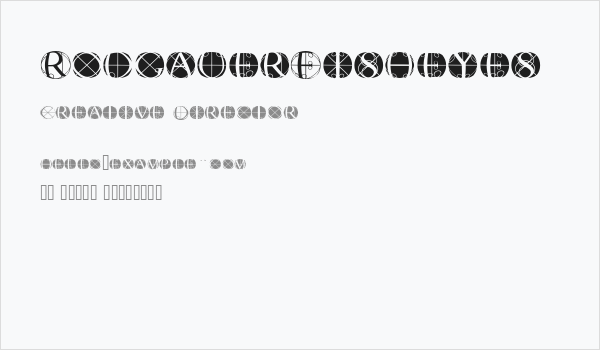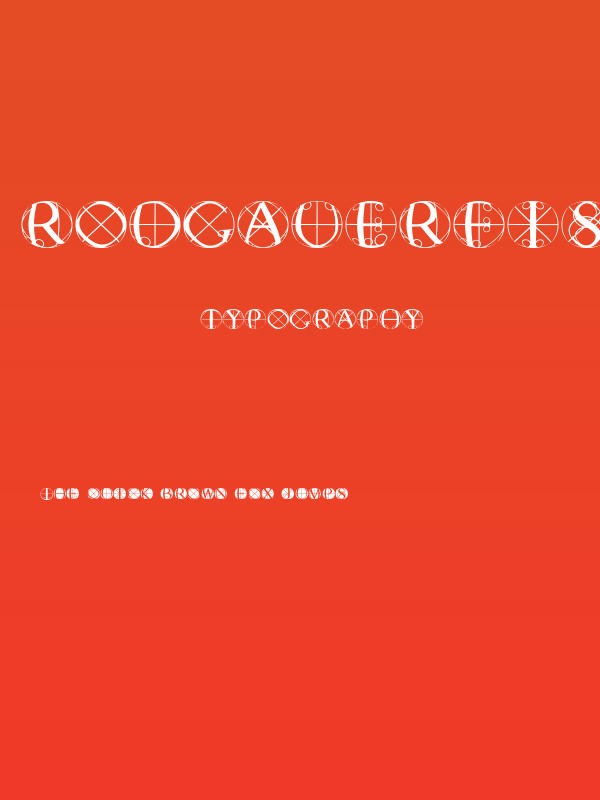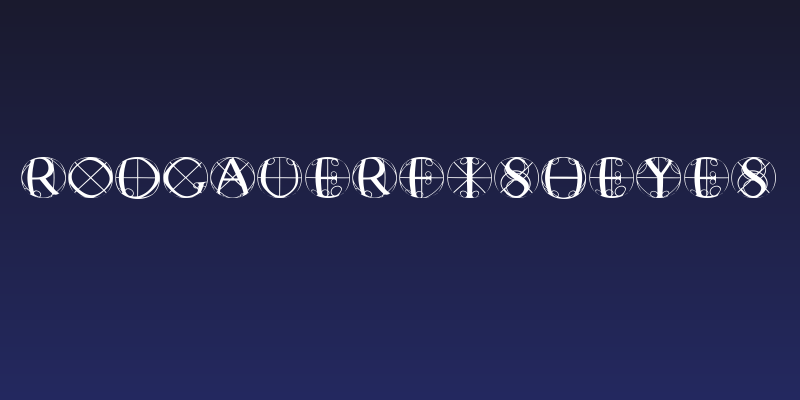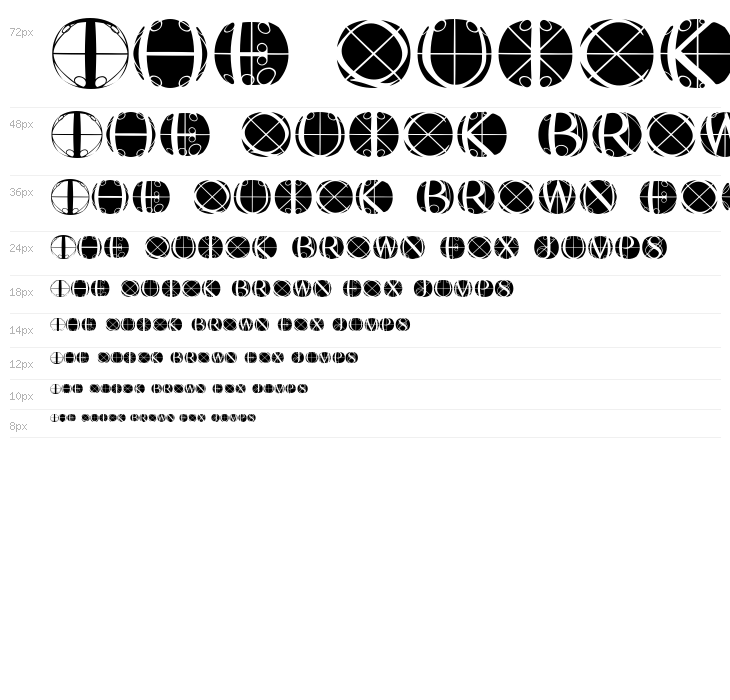
RodgauerFisheyes Font
RodgauerFisheyes Description
This font features a highly decorative and artistic style, with each character enclosed in a circular frame. The letters are intricately designed with geometric patterns and flourishes, creating a unique and eye-catching appearance. The uppercase and lowercase letters maintain a consistent circular motif, while the numbers and special characters follow the same design principle. The overall look is bold and striking, making it suitable for creative and unconventional projects.
| Use Case | Headlines, Logos, Artistic projects |
| Proposed Projects | Ideal for artistic posters, album covers, branding for creative industries, and decorative headings. |